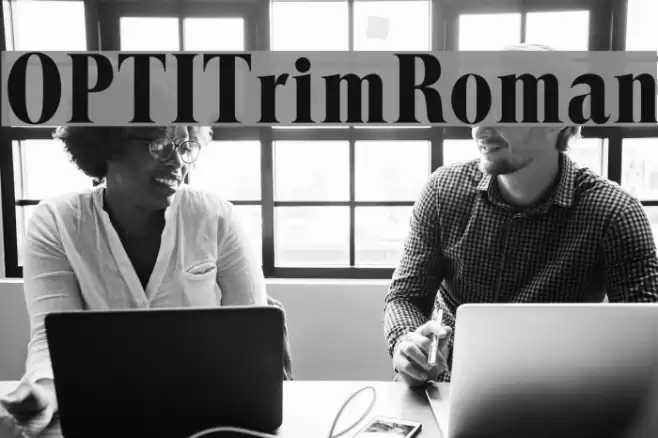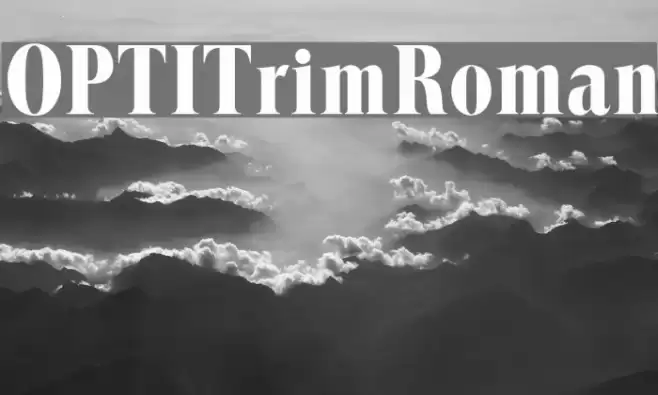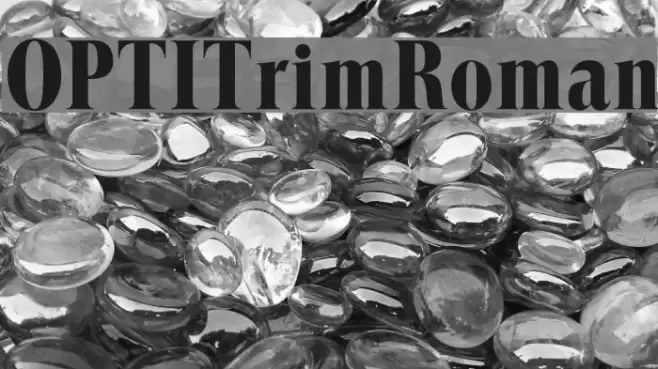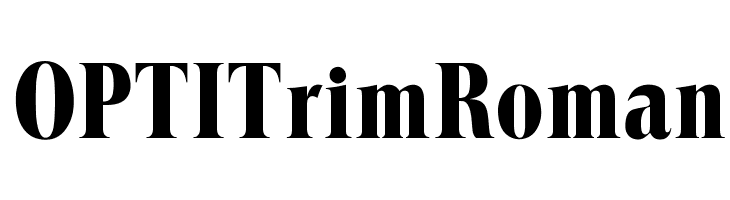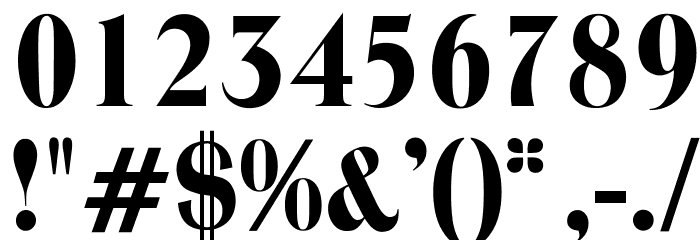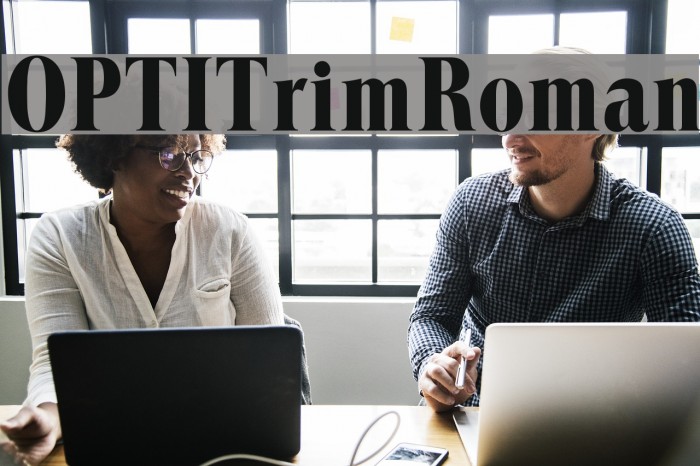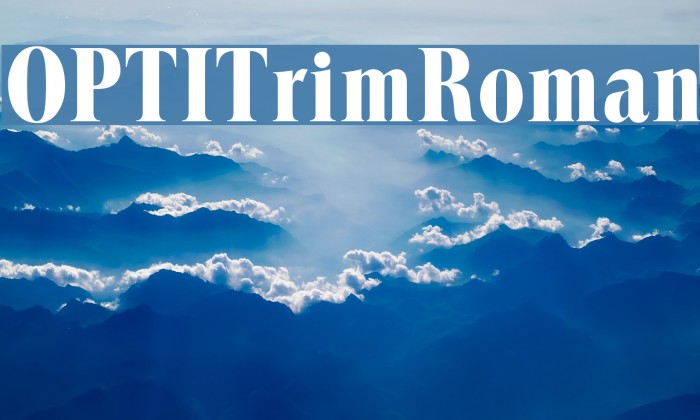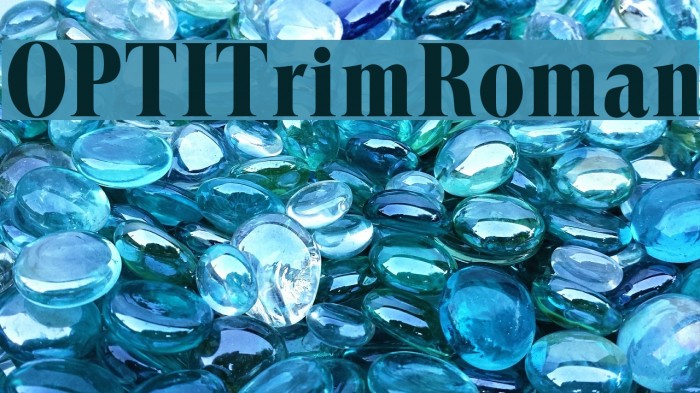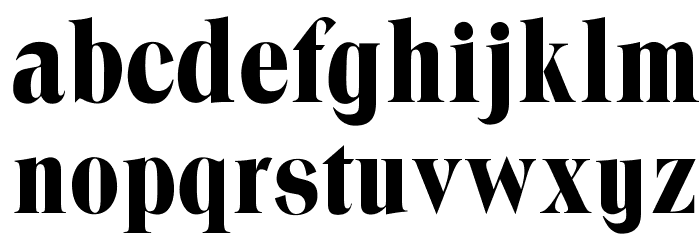
OPTITrimRoman Font
OPTITrimRoman Description
This typeface features a bold and authoritative presence, characterized by its strong, thick strokes and high contrast between thick and thin lines. The serifs are pronounced, adding a classic and formal touch to the overall design. The uppercase letters are tall and commanding, while the lowercase letters maintain a consistent style with slightly rounded edges that soften the overall appearance. The numerals are robust and clear, ensuring readability. Special characters are designed with the same attention to detail, providing a cohesive look across all glyphs. This font is ideal for projects that require a traditional yet impactful aesthetic.
A bold, high-contrast serif typeface with pronounced serifs and a classic style from Uncategorized fonts.
- Proposed Projects: Ideal for book covers, formal invitations, branding materials, and editorial design.
- Overall Style: Classic
- Use Case: Headlines, Logos, Editorial design